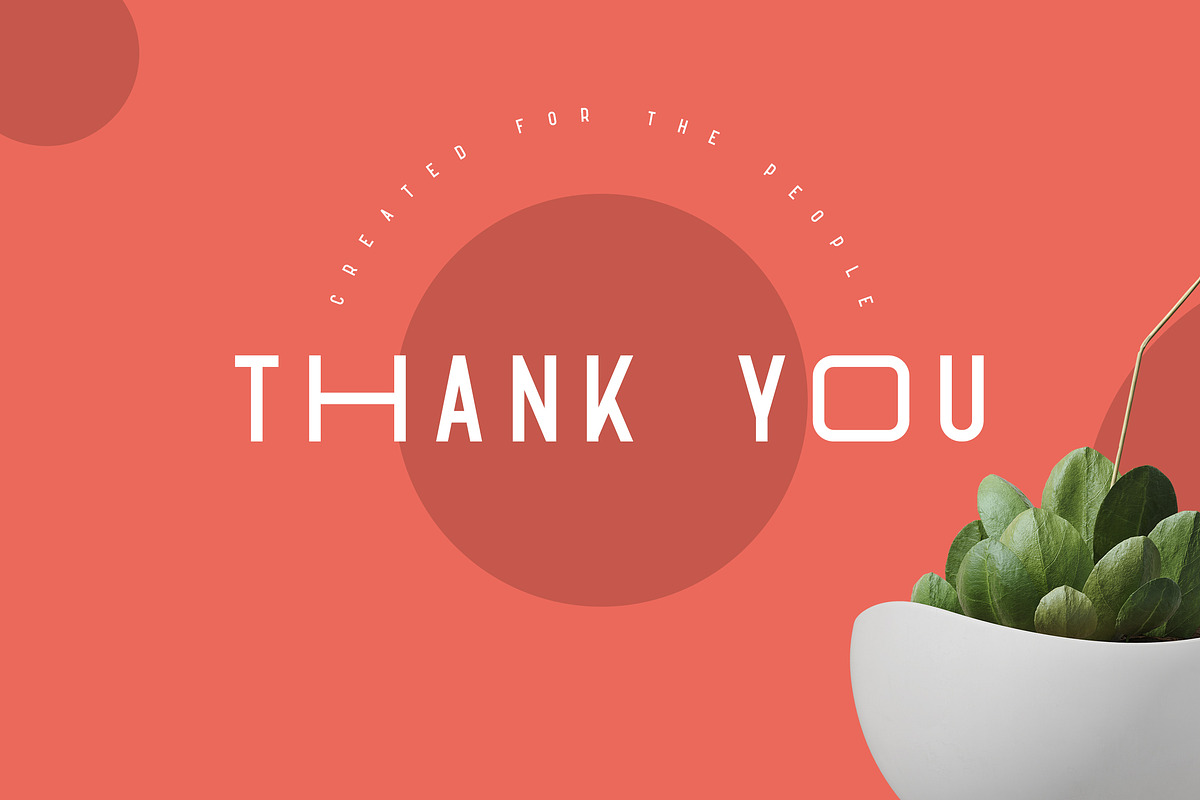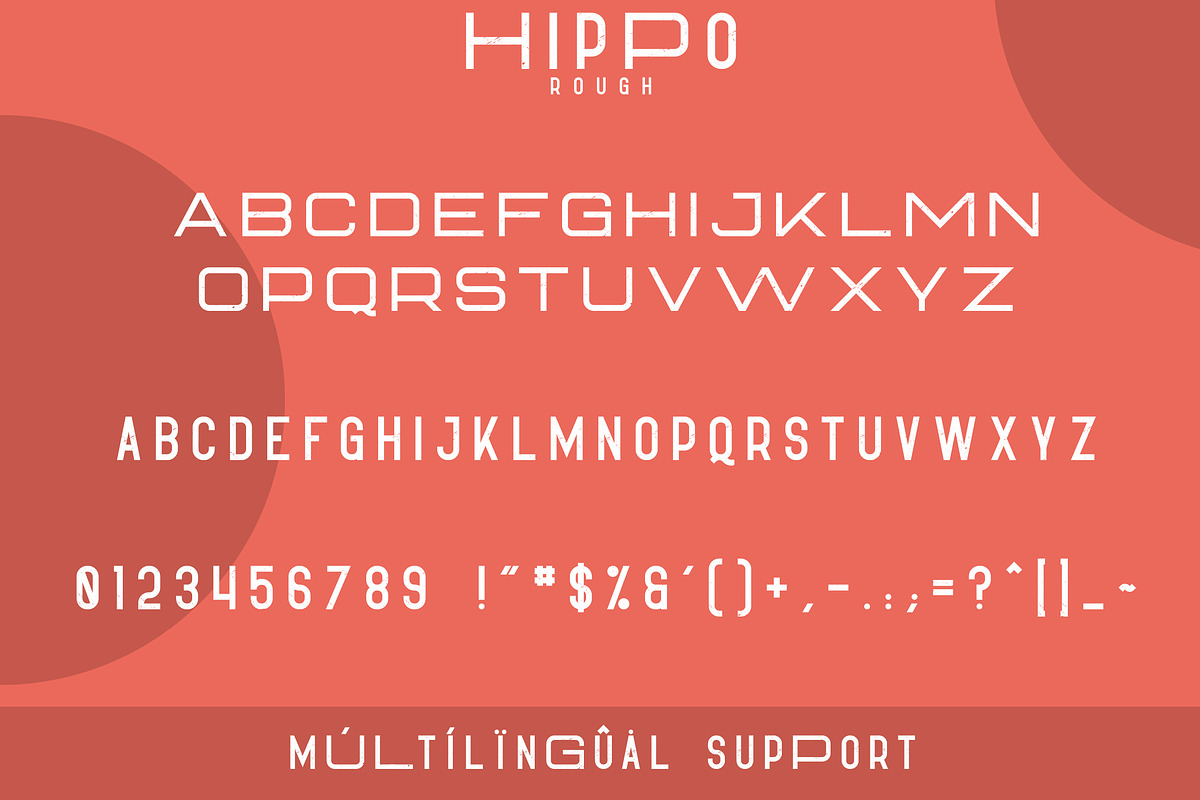
Hippo Sans Serif | 3 styles
Hippo is weird, clean font with 3 styles and multilingual support. It's a very versatile font that works great in large and small sizes.
Hippo is perfect for branding projects, home-ware designs, product packaging, magazine headers - or simply as a stylish text overlay to any background image.
- Uppercase,lowercase, numeral,punctuation & Symbol
- Outline
- Rough
- Perfect for headlines and logos